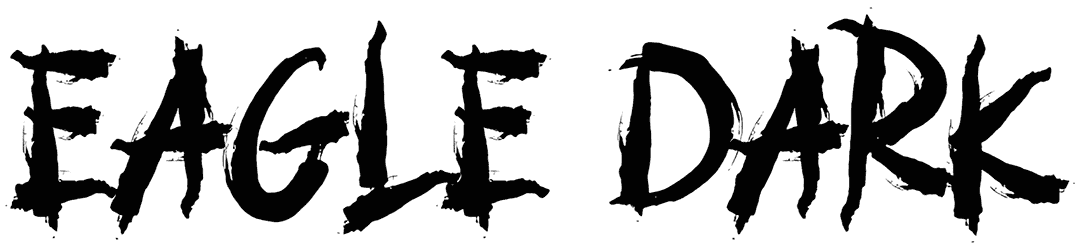
Eagle Dark Font
If you need an all-caps horror font to add a fresh breath to your artwork, then Eagle Dark really deserves to be on your radar. This magical masterpiece can drastically increase the efficiency of your creative ideas and make them look glorious alongside their counterparts.
This evil font can share a vibe of dynamic, fear, dread, or vivacity with the viewers. We strongly recommend you pick up this font for your posters, stickers, social media posts, billboards, or product labels.